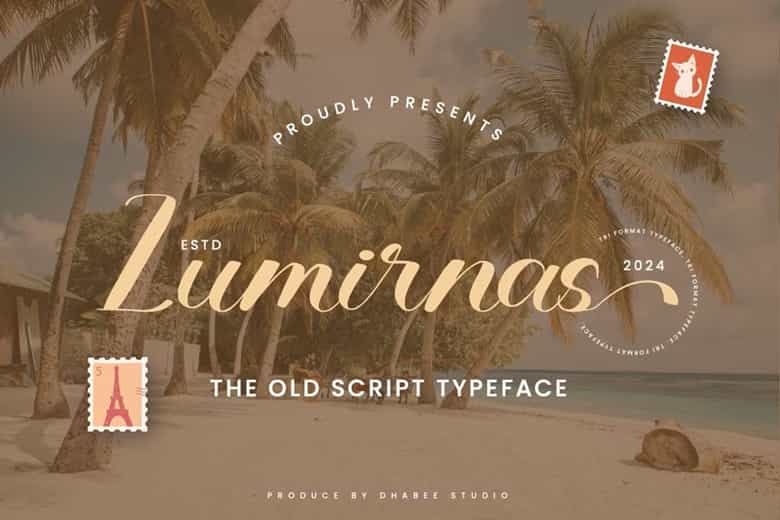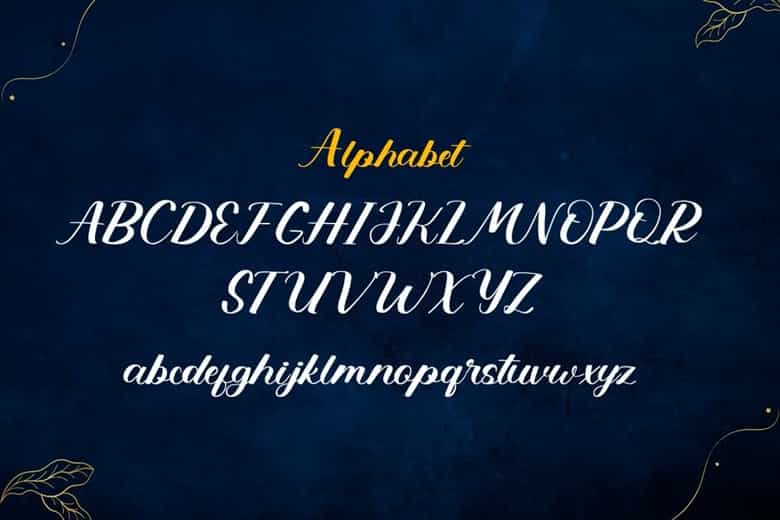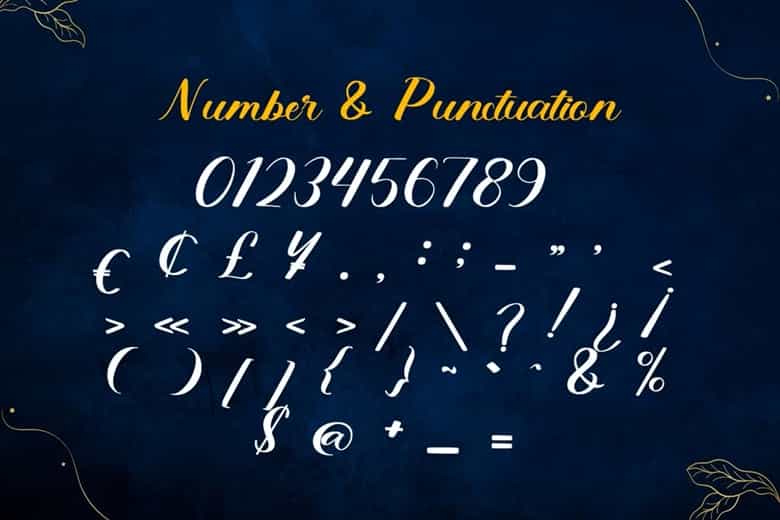
Discover Lumirnas Font, part of the Calligraphy Handwritten collection—a versatile and unique font perfect for adding a personal touch to your projects. Download it for free and enjoy crafting designs with style, from invitations to social media posts. This font is available exclusively for personal use, giving you the freedom to create without limits. Unlock your creativity with Lumirnas Font today!
Lumirnas is an elegant and flowing calligraphy script font. It has beautiful and well as a unique blend of ligatures a letter, so that the authors compose it with a and little swirly embedding, so that a modern font is formed and ready to make a statement by adding elegant and unique flair to your next design project. Add it to your most creative ideas and notice how it makes them come alive!